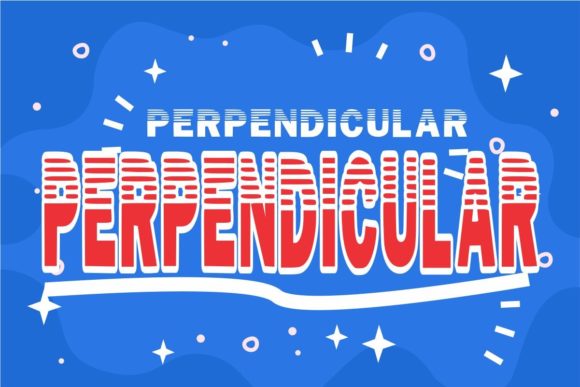
Introducing Perpendicular, the ultimate display font that adds a touch of boldness and fun to your creative projects. Crafted by the talented team at Im.design.art, Perpendicular is more than just a font - it's an expression of your individuality and style.
Step into a world of endless possibilities with Perpendicular. This extraordinary font is meticulously designed to stand out against dark backgrounds, making it the perfect choice for a myriad of applications. Its bold and captivating characters demand attention, ensuring your designs leave a lasting impression.
Whether you're a seasoned designer or just starting, Perpendicular is the perfect font to elevate your projects to new heights. Its versatility knows no bounds, making it suitable for a wide range of creative endeavors. From eye-catching crafts to stunning digital designs and even unique clothing designs, Perpendicular has the power to transform your vision into reality.
Let your creativity soar as you explore the boundless possibilities of Perpendicular. This remarkable font is your passport to a world of self-expression, allowing you to turn your ideas into tangible works of art. Don't settle for ordinary fonts - choose Perpendicular and unlock a new level of creativity.
Embrace the captivating charm of Perpendicular, the display font that will redefine your design journey. Its bold and playful personality will add a touch of magic to your projects, leaving a lasting impression on your audience. Perpendicular is not just a font; it's a statement of your creativity, a reflection of your unique style.